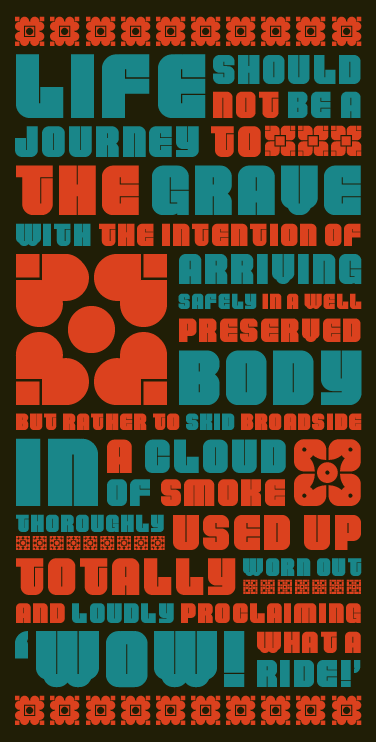
Thunderball FAQ:
Q: What's with the name?
A: At some point over the holidays, the movie Thunderball was on and I got to thinking about jet packs, Aston Martins, archenemies, Blofeld, SPECTRE and whether Miami is really worth 100 Million in diamonds or if it might have been better just to keep the diamonds instead of trying to save Miami. I mean, at the time of the movie, Miami hadn't even discovered cocaine yet and really wasn't on the map. If I were Blofeld, I would have picked an entirely different city to hold a bomb threat over. It was the sixties after all, take out San Francisco. Incidentally, at one point in the movie Bond finds himself in the Bahamas in the middle of a junkanoo, which is a kind of street fair where folks wear insanely colorful costumes (mostly of feathers) and dance around. Junkanoo! Now that would make a great name for a font. Much better than Thunderball. Is it too late to change the name?
Q: Your recent output - including this clodhopper - seems to be stuck on the 1.8 brick size filter, is your filter toggle stuck or something?
A: Your Mom's filter toggle is stuck, buddy! And my next font will be called Clodhopper, and it will be yet another font built at 1.8 and it's going to be big and thick so you'll really feel it when I beat on your skull with it.
Q: Whoa! Touchy. Ok, how about that uppercase 'T', it's awfully funny looking, you gonna change it?
A: Oh Boy. You just don't know when to quit, do you? The 'T' began as a spacing compromise but over the last few days it has grown on me - overtaken me really - like some saccharine soaked pop song that I hate but secretly love. So back off on the 'T', it's not going anywhere.
Q: Any last thoughts?
A: Blofeld, Junkanoo, Clodhopper - all rad names for fonts that have yet to be born. Q.E.D.
Fantastic. How about an alt 'T' for all us dopes who can't appreciate its charm?
really like the sample.
also nice solutions for V and W.
AMAZING!
(and the sample as usual is superb!)
@CharmlessDopes473: Alright. Ok. I will bend. Two versions of an alt 'T' have been add, an anorexic one and a bloated one. Unless I've overlooked something obvious (which is entirely possible), I think that's as good as it gets.
Great font. Awesome sample.
terrific!
I think the unmodified T is charming and full of personality. Totally titillating.
I can see why you're hooked on the 1.8 scheme -- the way the circle brick overlaps the joins is nothing short of miraculous. I'm glad you didn't abort the t before we all got to look at it; there's nothing wrong with it. In fact it just adds charm to a design that's already bristling with niceties.
Can niceties be said to bristle? In the world of Mr Bond, indeed they can.
very nice one.
by the way keep the t as it is!
Thanks everyone for the bristling comments filled with titillating niceties. Although, I've enjoyed my time hanging out in the 1.8, I'm going to take my leave now and adventure out to undiscovered lands. Maybe I'll try 1.4 or .73 or maybe even zero, (shudder).
I love the effects you get with the 1.8 brick size. Nice work. Great sample.
Nice!
lmao.  nice font.